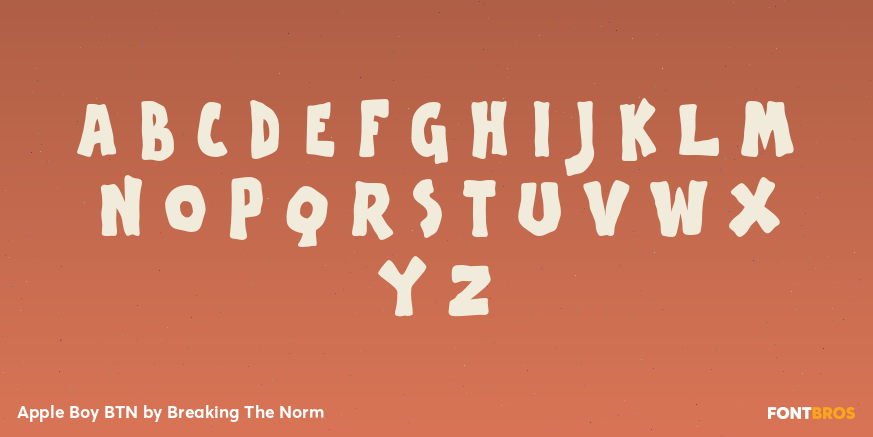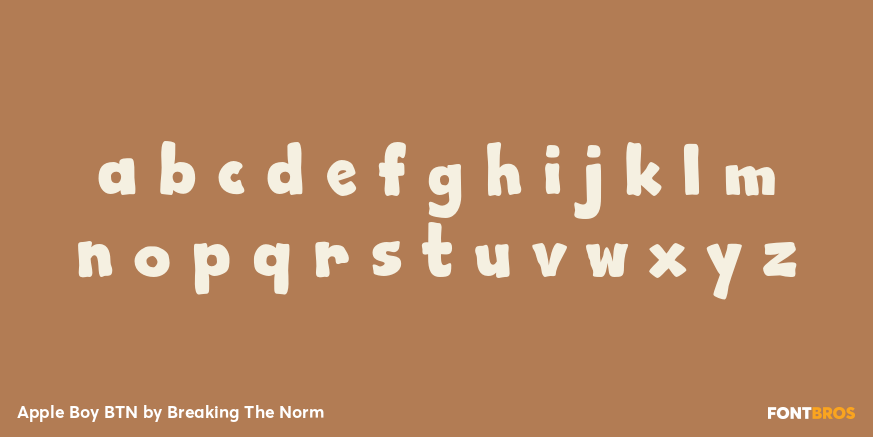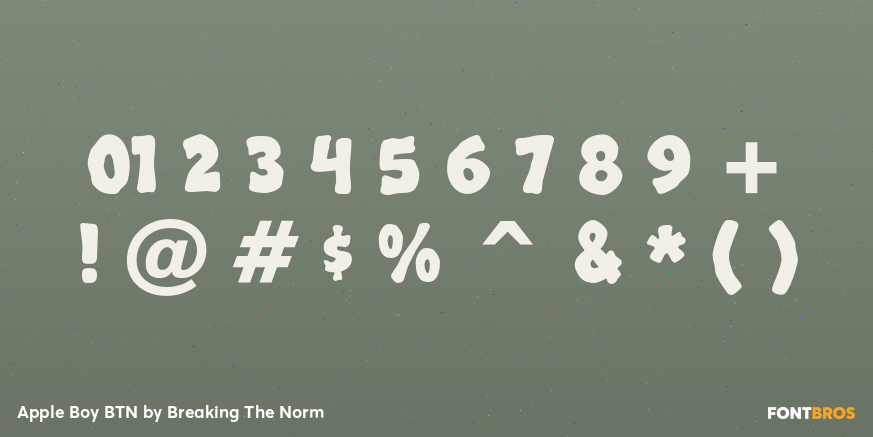
Apple Boy BTN
Font Family by Breaking The Norm
Apple Boy BTN is a bold comic-style display family with a hand-drawn attitude that feels playful, awkward, and full of personality. Its uneven, sketchy character gives it an energetic homemade charm, while the heavier construction helps it stay strong and attention-grabbing in headlines and short copy. Apple Boy BTN works especially well for comics, kids' design, posters, packaging, playful branding, school-themed graphics, party materials, and anything that needs a fun, offbeat voice. With Outline, Regular, and Scratch styles, the family offers flexible ways to build lively layered or textured display typography.